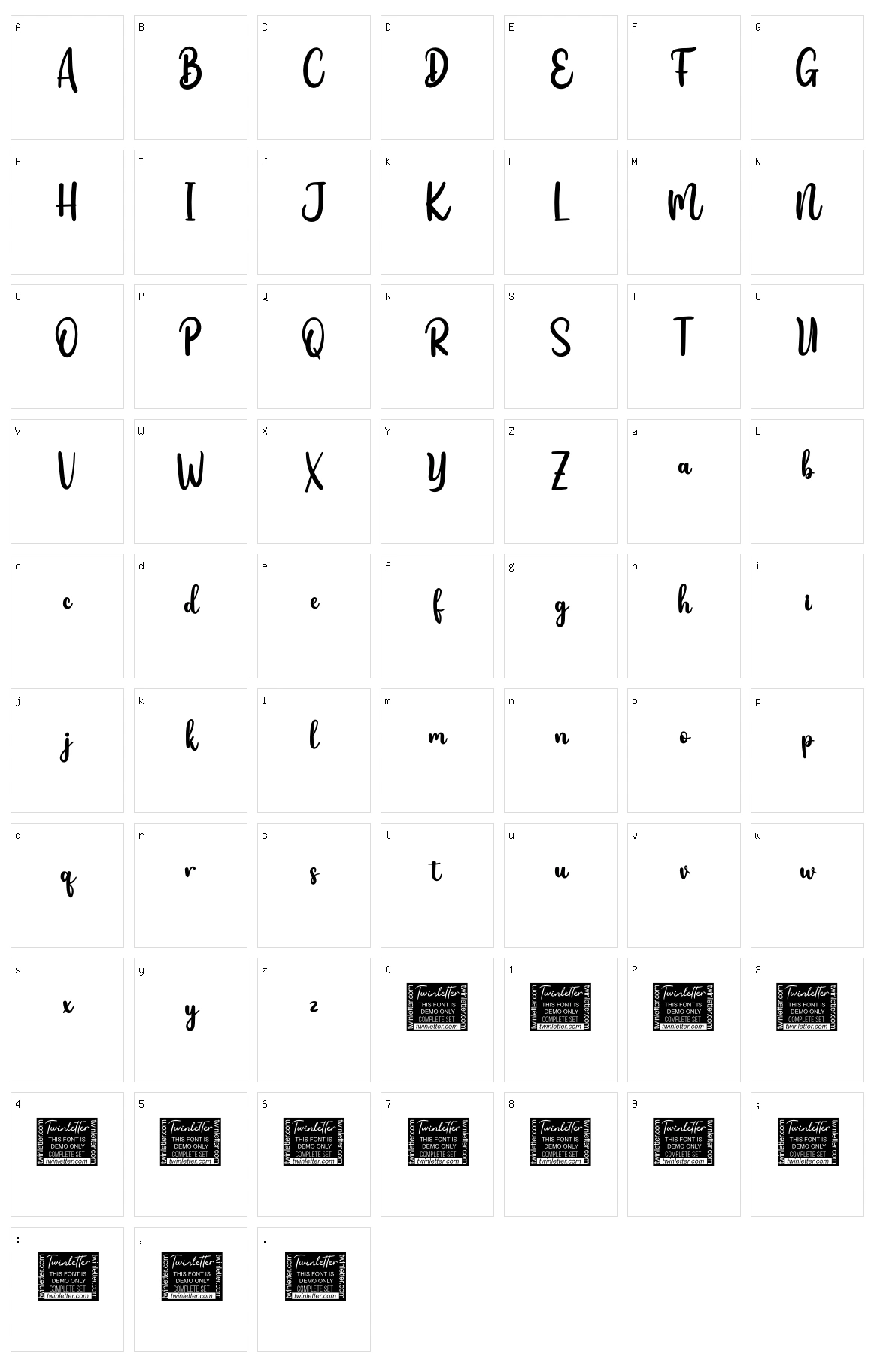
The free font Newest is carefully designed by twinletter, showcasing a thoughtful balance of creativity and usability and falls under the Script font style. When you download the ZIP file, it contains only 51.65 KB of font files, making it lightweight and quick to download. Please review the license details below to understand permitted usage and distribution rights. If license information is not available, we recommend using this font for personal projects only or contacting the author directly for commercial usage permissions.